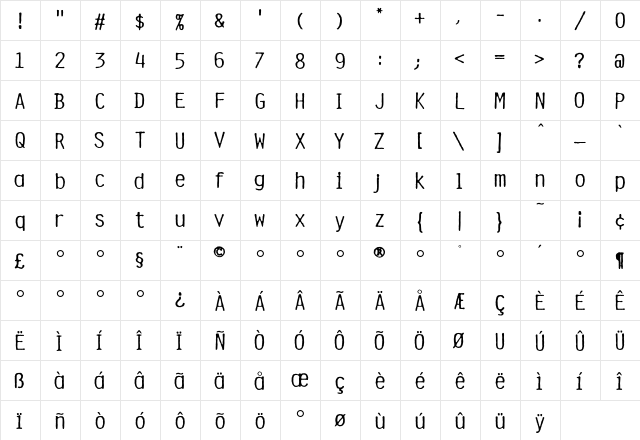
Flyerfonts InsideOut
Design Context for Flyerfonts Typeface
Flyerfonts offers clean, dependable letterforms without strong stylistic allegiance, making it a practical choice for designers who need flexibility.
Pro Tip: Use Flyerfonts in both headline and body roles to test its range before committing to a single application.